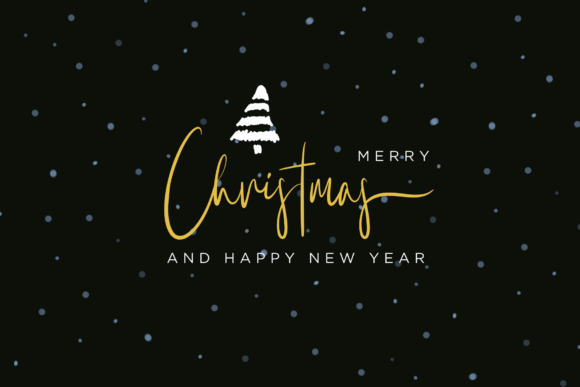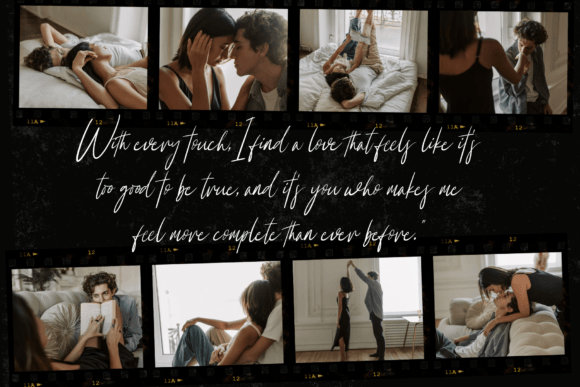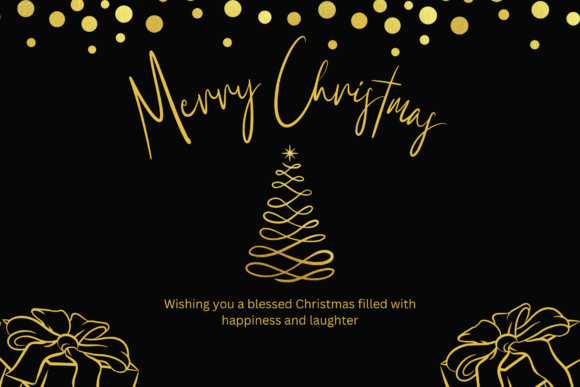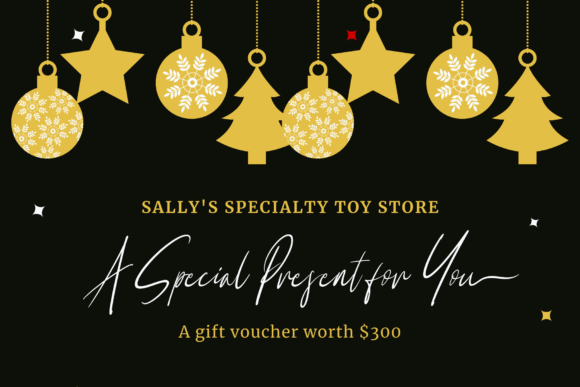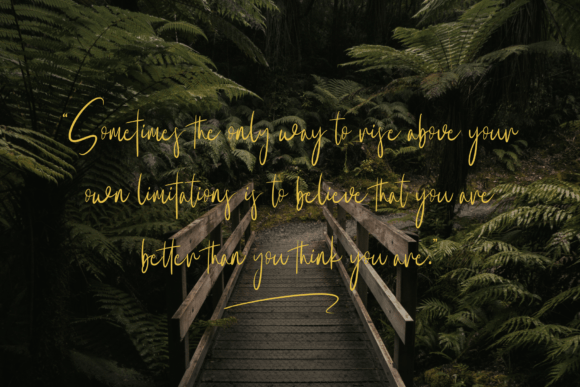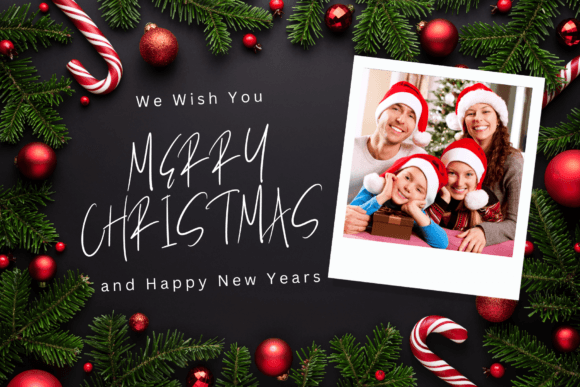
Unveiling the Beauty of Holly Stroke Font
As you sit in front of your design software, staring at a blank canvas, the excitement of a new creative project begins to build. You’re about to bring a vision to life, but the right font can make all the difference. It’s in these moments that the perfect design resource can elevate your work, making it truly shine. This is where the Holly Stroke Font comes in – a masterfully crafted monoline script font that brings a touch of natural allure and handmade charm to your designs.
With its human-guided strokes and intricate ligatures, the Holly Stroke Font is more than just a pretty face. It’s a valuable tool for designers who demand high-quality, versatile fonts that can effortlessly adapt to any project. Whether you’re working on a transparent background or need a font with swashes, this font has got you covered. And the best part? It’s available for free download, making it an essential addition to any designer’s toolkit.
Key Features of Holly Stroke Font
- High-quality design with transparent background, ideal for creative projects that require a touch of elegance.
- Features a unique holly-inspired stroke design, adding a touch of whimsy and creativity to any project.
Honest Review: Holly Stroke Font
I recently stumbled upon the Holly Stroke Font, and I must say it’s been a game-changer for my creative projects. This font is a beautiful addition to any design, offering a high-quality aesthetic that’s sure to impress.
- ✨ Unique Design: The Holly Stroke Font boasts a distinctive design that sets it apart from other fonts. Its intricate details and elegant strokes make it perfect for creative projects that require a touch of sophistication.
- ✨ Transparent Background: This font features a transparent background, allowing for seamless integration with any design element. It’s a design resource that’s both versatile and convenient to use.
However, I did encounter a few limitations during my use of the Holly Stroke Font:
- ⚠️ Limited Character Set: The font’s character set is somewhat limited, which may be a drawback for designers who require a wide range of characters for their projects.
Overall, I’m thoroughly impressed with the Holly Stroke Font. It’s a valuable design resource that’s perfect for designers looking to add a touch of elegance to their creative projects. And the best part? It’s available for free download, making it an even more attractive option for designers on a budget.
The Holly Stroke Font is a versatile design resource that can be used in a variety of creative projects, including invitations, posters, and social media graphics. Its transparent background makes it easy to use in designs with complex backgrounds.